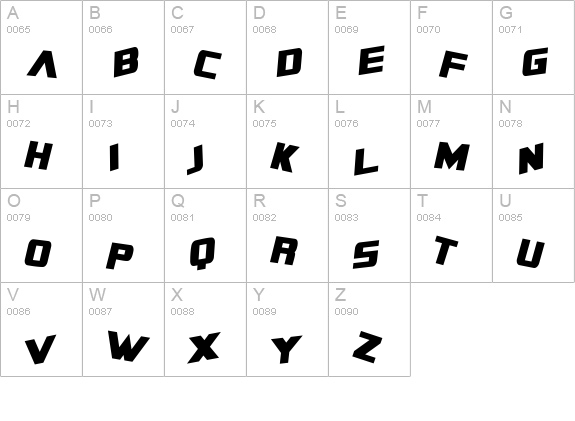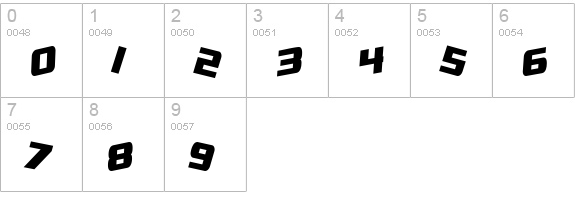
SF Zero Gravity Condensed Bold Italic Font Details
SF Zero Gravity Condensed Bold Italic is a strong, high-contrast, condensed-width, italic variant in the SF typeface family \xE2\x80\x94 well suited to headlines, attention-grabbing titles, and strong calls-to-action.
SF Zero Gravity Condensed Bold Italic font is a captivating and futuristic typeface that effortlessly combines sleekness with a touch of rebellion. Designed for those who seek to make a bold statement in their designs, this font exudes confidence and creativity. With its condensed form and bold strokes, SF Zero Gravity Condensed Bold Italic commands attention and demands to be noticed. Its italicized slant adds a dynamic flair, giving your text a sense of movement and energy. Whether used for headlines, logos, or branding materials, this font is sure to leave a lasting impression. The unique design of SF Zero Gravity Condensed Bold Italic sets it apart from other fonts, making it an excellent choice for projects that require a modern and edgy aesthetic. Its sharp and angular letterforms create a sense of tension and excitement, perfectly capturing the essence of the sci-fi genre. But what truly sets SF Zero Gravity Condensed Bold Italic apart is that it is freely available to download at FontsMarket.com. This means that you can easily access and incorporate this remarkable font into your projects without any cost. Now, you can unleash your creativity without any restraints and take your designs to new heights. So, if you're looking for a font that combines futuristic elegance with a rebellious spirit, SF Zero Gravity Condensed Bold Italic is the perfect choice. Download it for free at FontsMarket.com and elevate your designs to the next level.